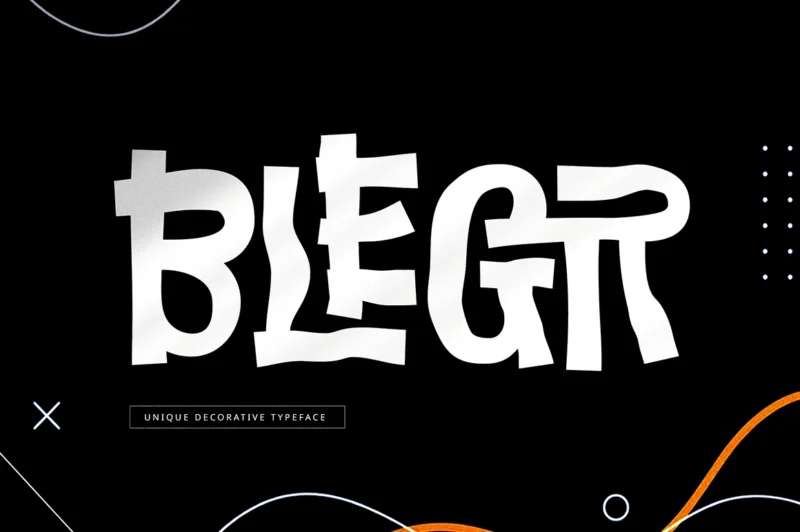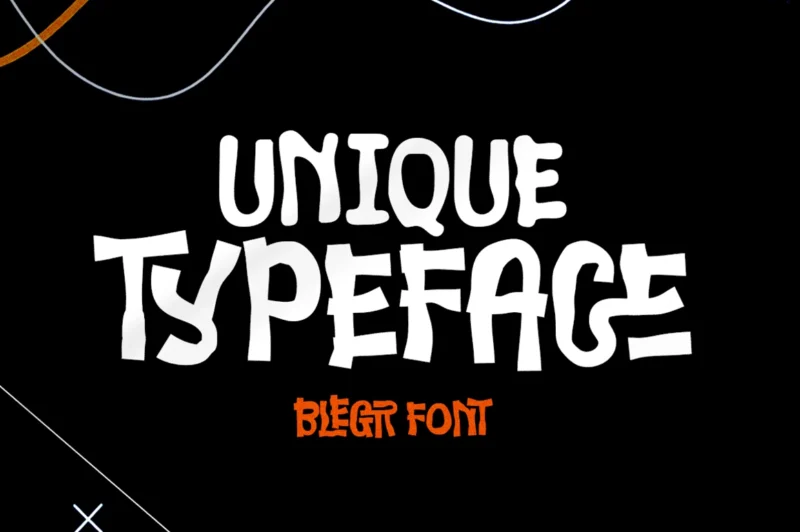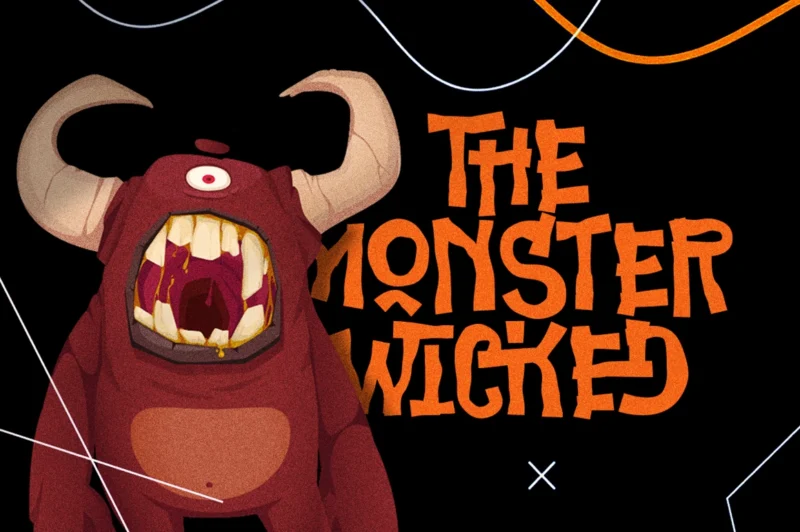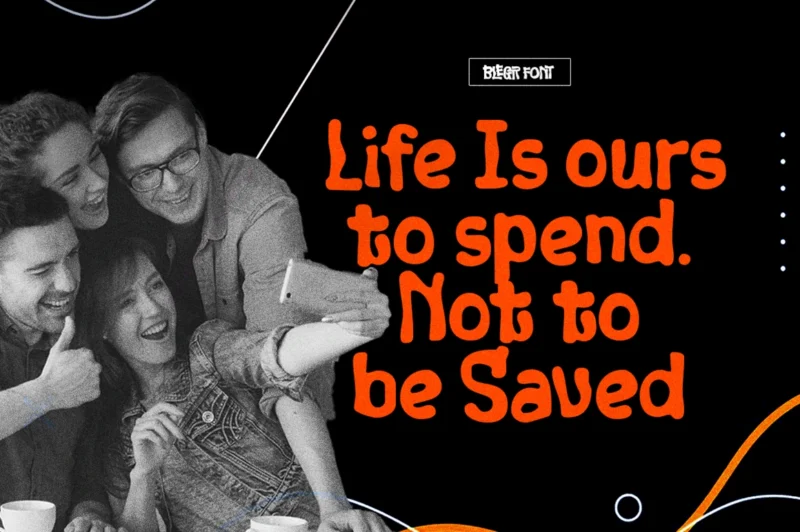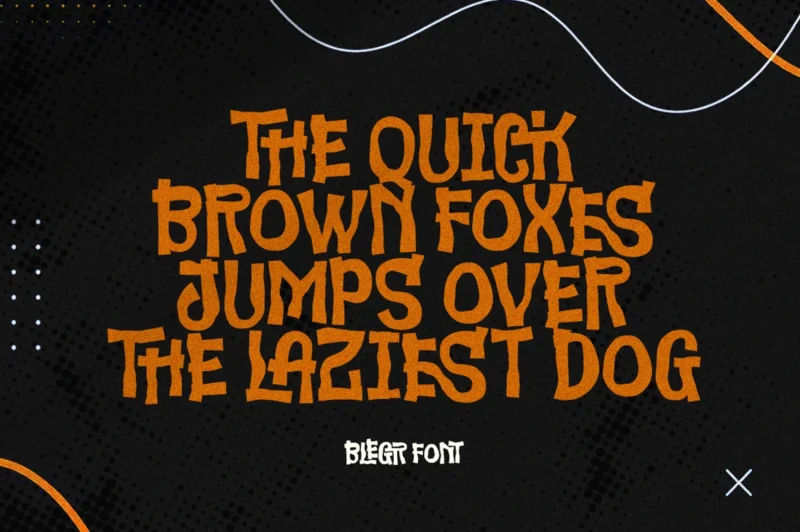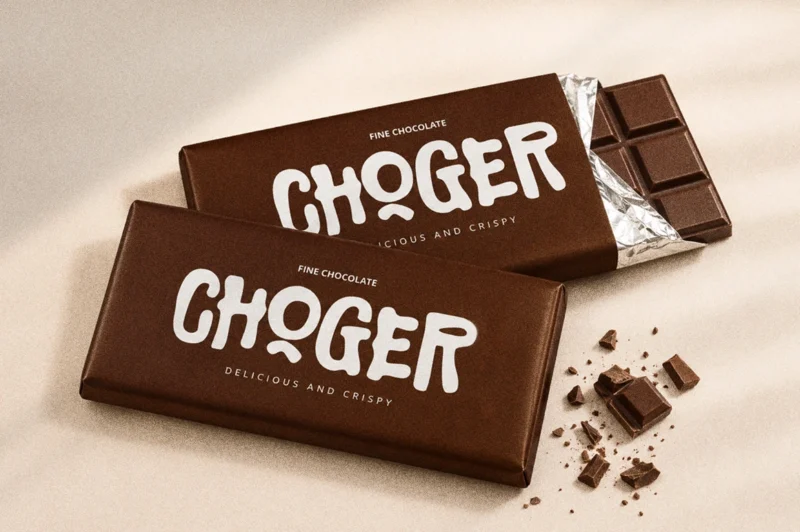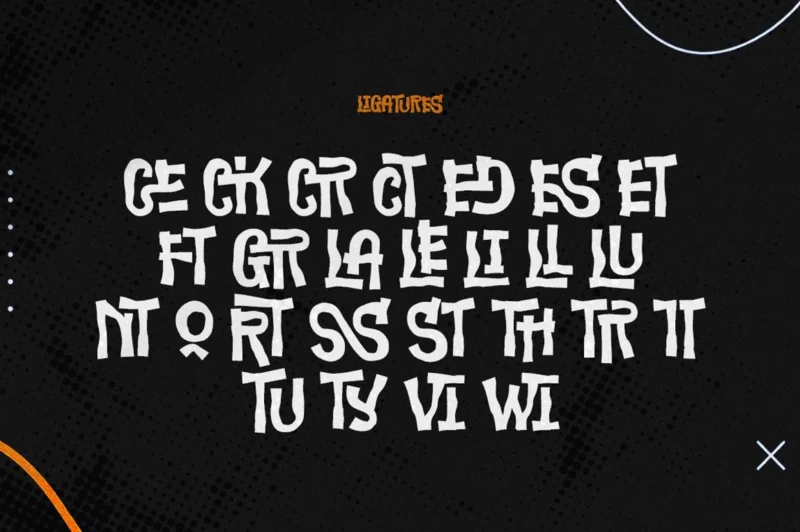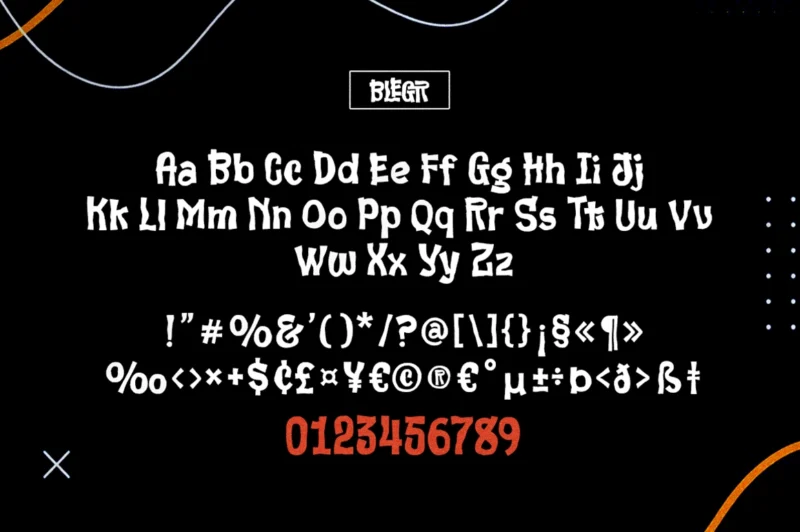
Blegr is a bold decorative display font designed to bring personality and originality to every project. Featuring unique letterforms and a distinctive style, it instantly creates a strong visual impact. Available in Regular and Smooth styles, Blegroffers the flexibility to match a variety of creative directions—from strong and playful to clean and elegant. Perfect for logos, logotypes, branding, headlines, banners, posters, social media, and any design that deserves a memorable typographic touch. Let Blegr turn simple text into a bold visual statement.
- Unique Decorative Font
- More Ligatures pair
- Basic Latin Glyphs
- Ligatures and Alternates
- Numeral and Punctuation
- Currencies
- Multilingual Support